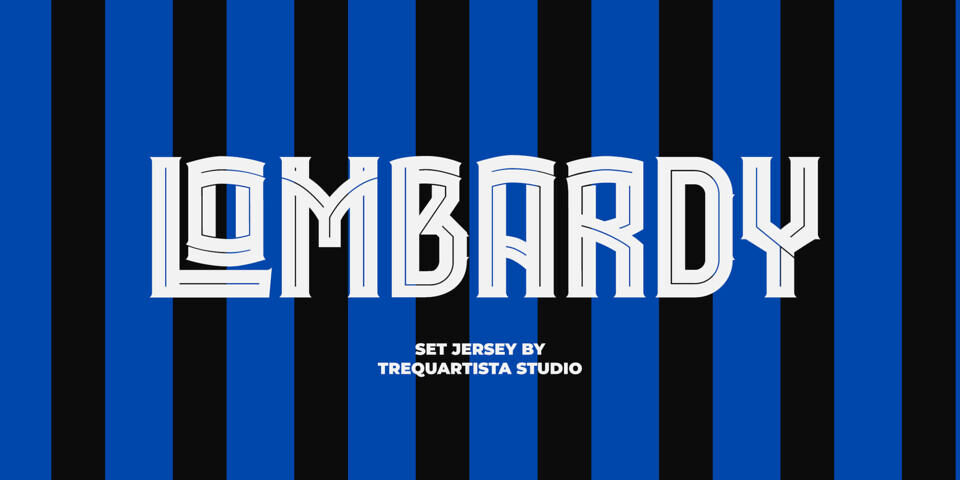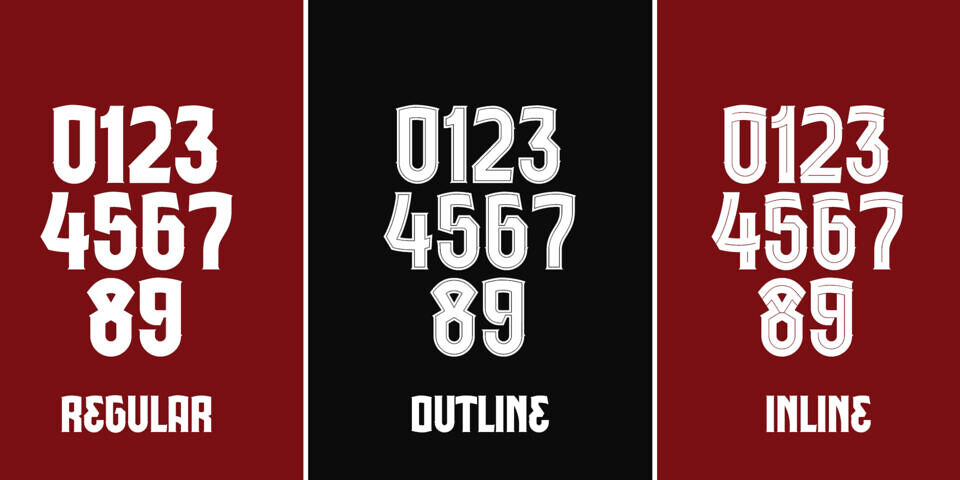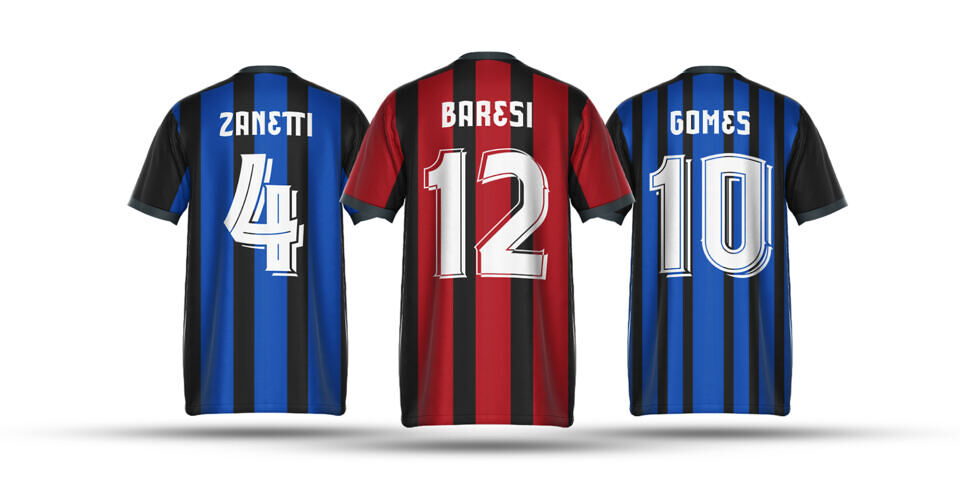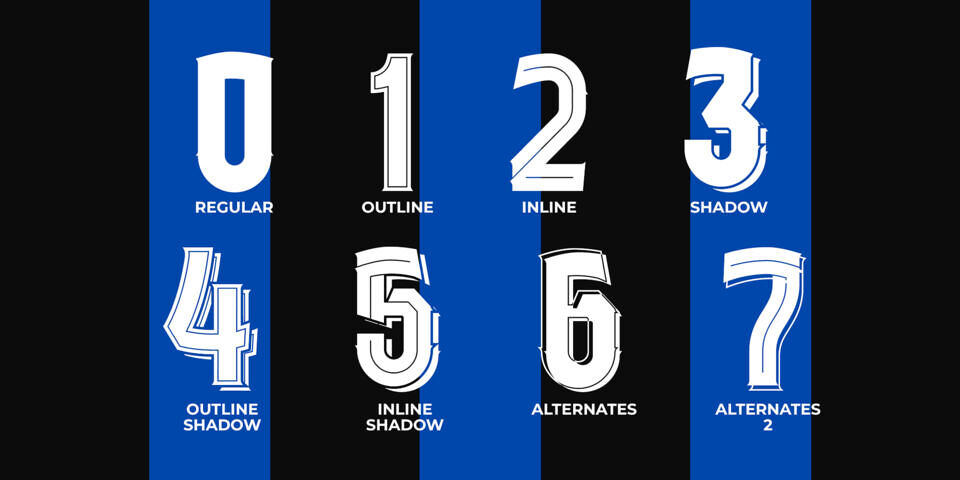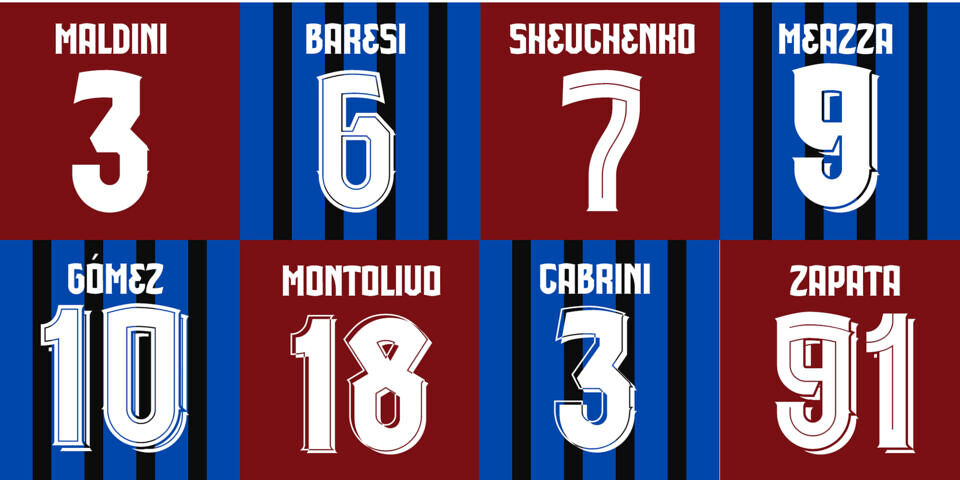
Lombardy Font
Lombardy is a bold football display font inspired by Northern Italy’s legendary football culture and architecture. Featuring strong vertical strokes, carved inline details, and stadium-ready letterforms, it blends classic Serie A typography with modern precision. Perfect for sports branding, jerseys, posters, and retro-inspired designs, Lombardy delivers a powerful mix of heritage, structure, and competitive spirit.
Designed by: Trequartista Studio